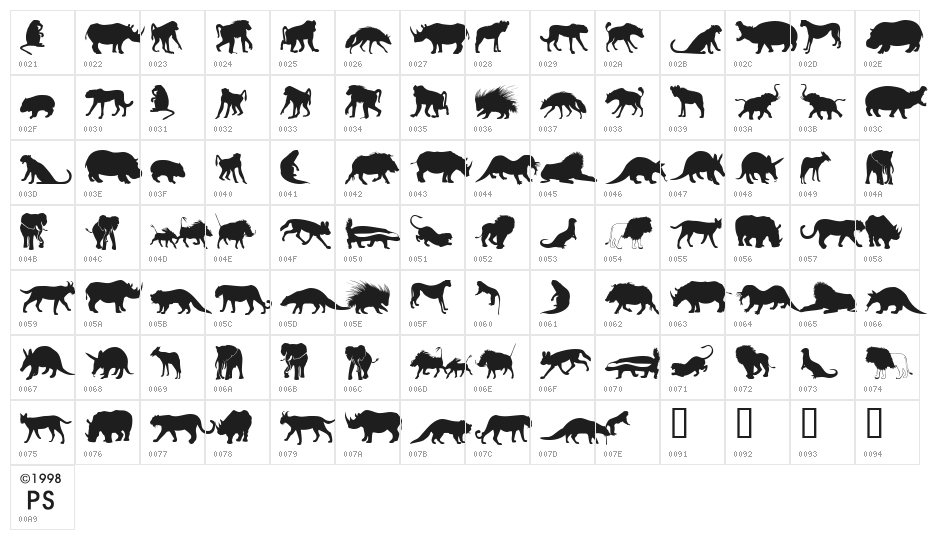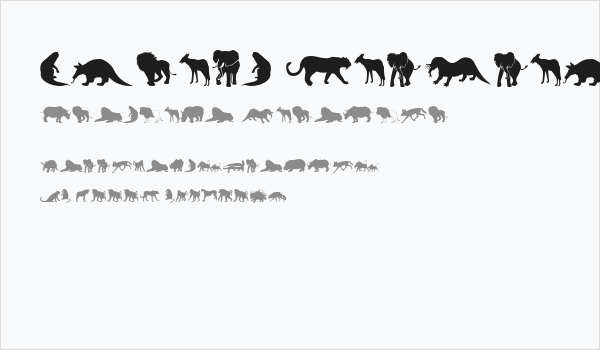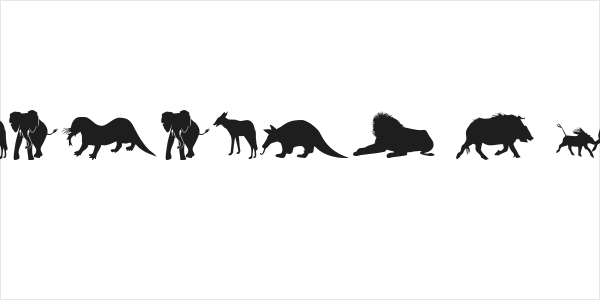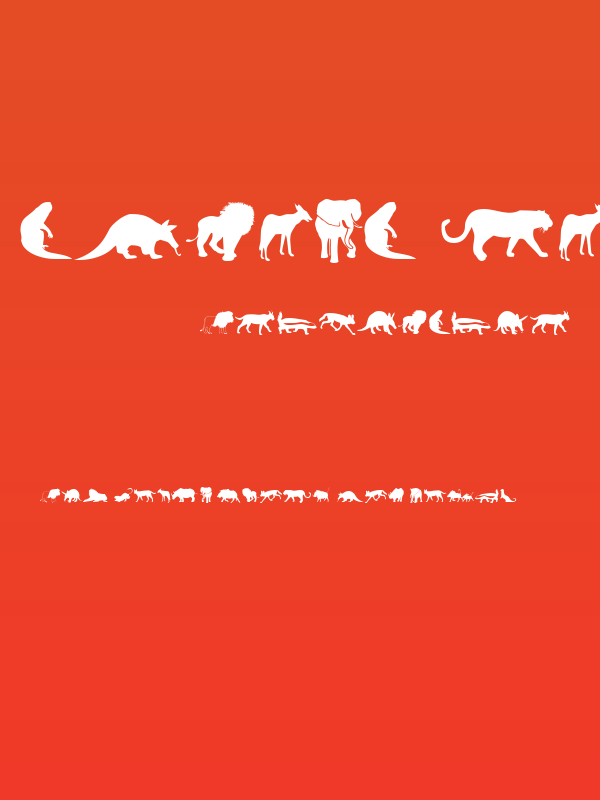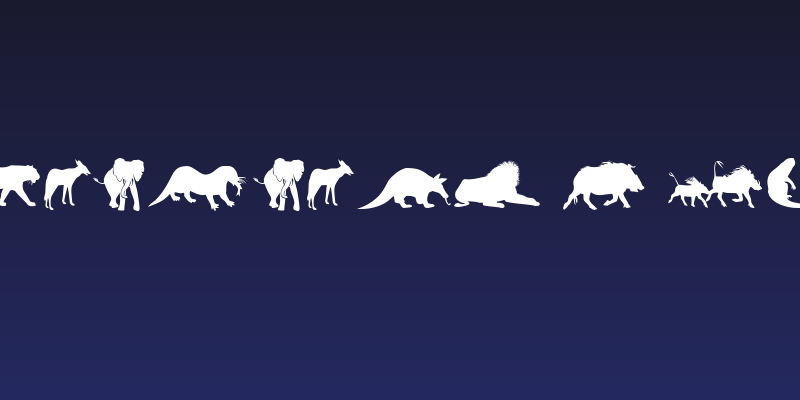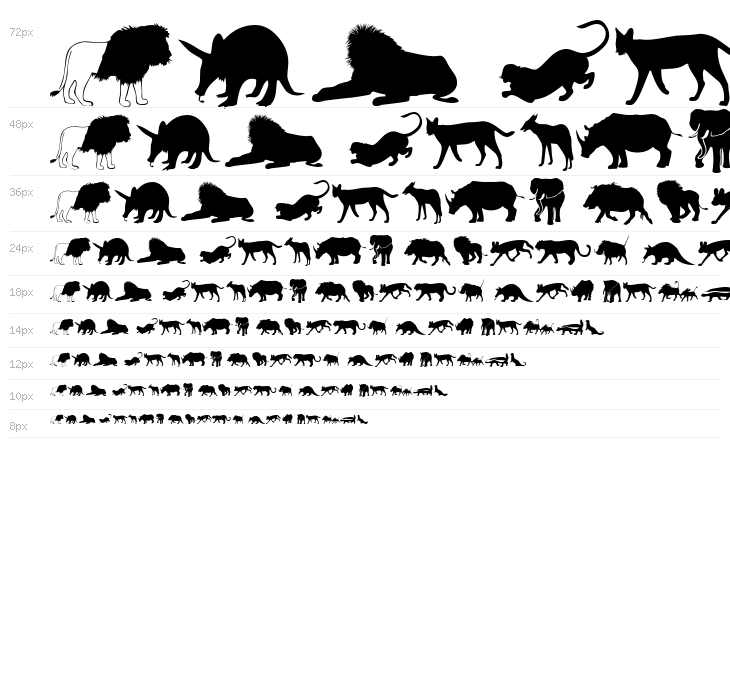
Afrika Wildlife B Mammals2 Font
Afrika Wildlife B Mammals2 Description
A decorative display set featuring solid black silhouettes of various African mammals, each glyph representing a different animal in profile with distinctive shapes and postures.
| Overall Style | Decorative, Thematic, Playful |
| Use Case | Logos, Headlines, Themed graphics, Educational visuals |
| Proposed Projects | Educational materials, wildlife posters, themed event invitations, children's books, zoo signage, decorative headings. |